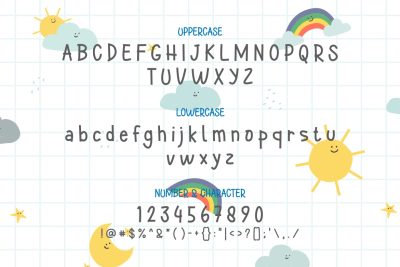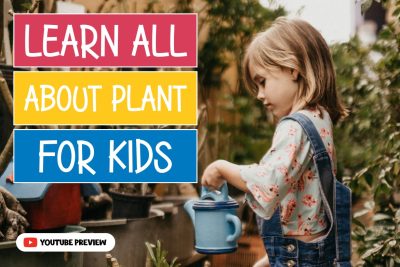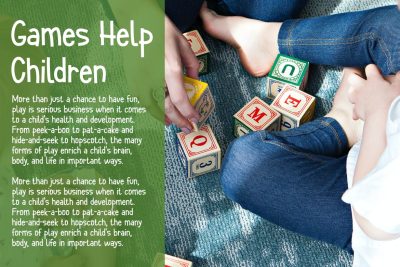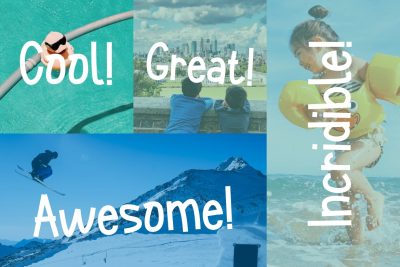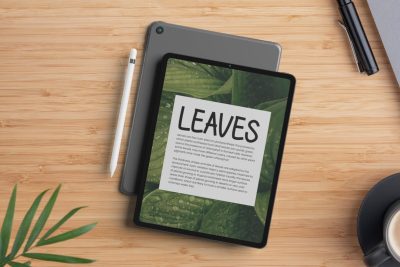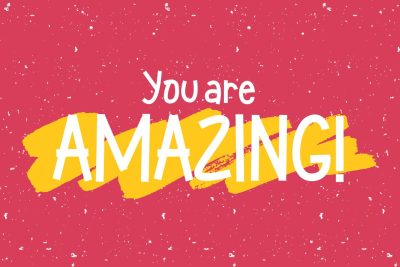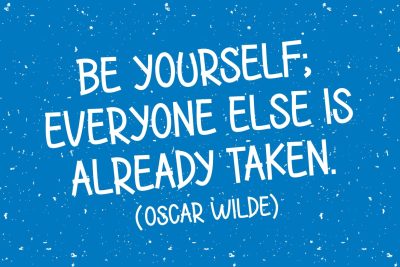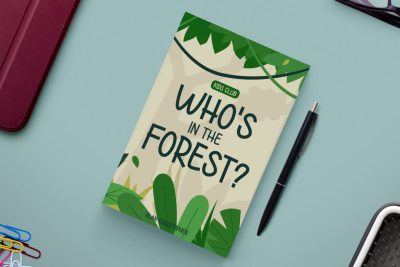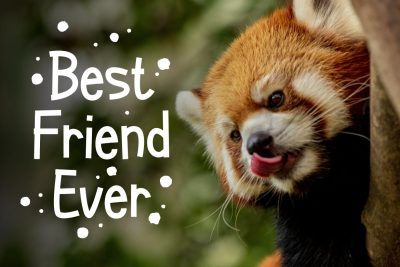
Cute Font Lullaby is a gentle, playful typeface perfect for childrenโs projects. With soft, rounded characters and a friendly, handwritten style, it adds warmth and comfort to any design. Additionally, the font combines simplicity with a soothing, pastel-inspired look, making each letter feel inviting. Furthermore, it captures attention without overwhelming, making it ideal for titles, headings, and focal points in family-friendly designs.
Moreover, the characters in Cute Font Lullaby are highly legible, even in small sizes, making it versatile. This font blends charm with readability, creating a personal and engaging feel. Its subtle, hand-drawn style adds an authentic, down-to-earth look, perfect for projects that aim to create a warm, friendly atmosphere. With delicate curves and a touch of whimsy, Cute Font Lullaby is both visually appealing and functional for many family-oriented projects.
Cute Font Lullaby Ideal for Use By
Cute Font Lullaby is perfect for teachers, childrenโs book authors, illustrators, and family-focused content creators. For example, educators can use it in worksheets, presentations, or classroom decor to engage young learners with a cozy, inviting feel. Additionally, its simplicity and readability make it practical for educational materials, helping children stay focused. Furthermore, its gentle style is well-suited for early education, promoting a calm and friendly environment.
In addition, childrenโs book authors and illustrators will find that Cute Font Lullaby adds warmth to their work. Its handwritten look enhances story visuals, making titles and headings more charming. This font is ideal for bedtime stories, educational tales, or narratives that create a soothing atmosphere. Additionally, it pairs beautifully with soft illustrations, enriching the reading experience for young audiences.
Graphic designers can also use this font is for branding in the childrenโs market, such as toys, kidsโ apparel, and nursery decor. The fontโs calming and friendly look suits brands targeting parents who value nurturing aesthetics. Additionally, itโs an excellent choice for packaging, signage, and ads in family-oriented markets. Its pastel-like appeal helps build an emotional connection, making brands feel approachable and appealing to families.
In the digital space, this font is also perfect for social media posts, YouTube thumbnails, and apps aimed at young audiences. Family-focused content creators can use this font to make visuals both engaging and calm. Its readability and charm make it adaptable across various digital platforms, helping messages feel personal and inviting.
Lastly, parents who enjoy DIY projects, like birthday invitations, baby shower cards, or room decor, will find Cute Font Lullaby delightful. This font allows them to add a heartfelt, special touch to their projects, creating cozy family moments. With its warm design, this font is enhances the joy of cherished celebrations, making it ideal for family-focused projects.